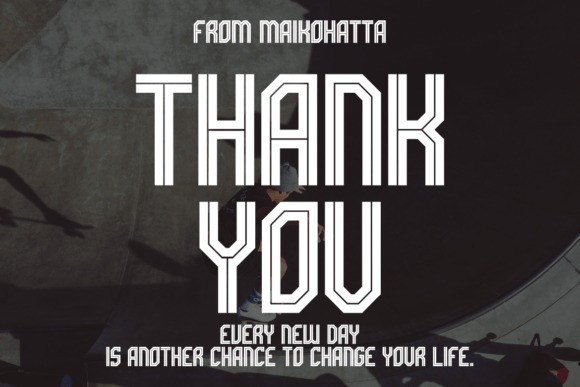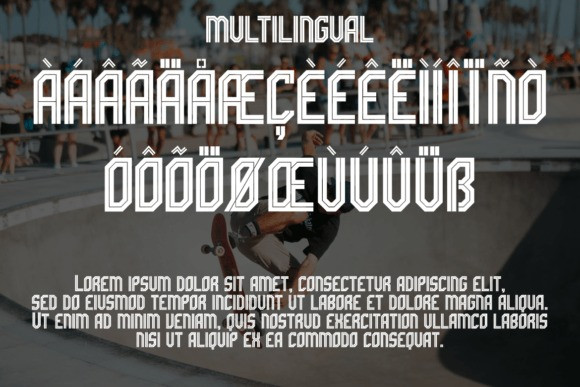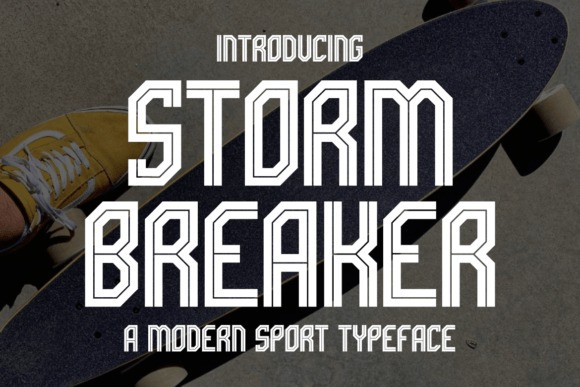
Storm Breaker Font
Storm Breaker Font – Modern Font is a bold and authentic display font. The font is suitable for any branding project like logo, template design, esport, and many more. outstanding in a wide range of contexts.